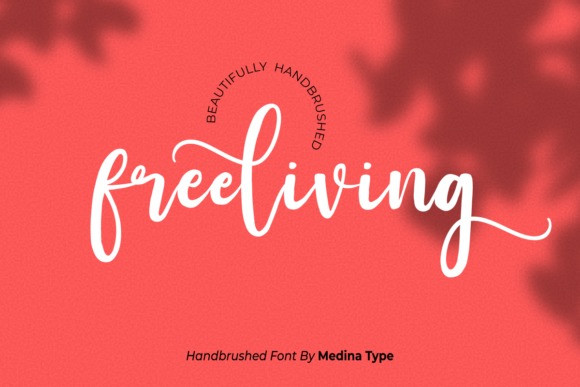
Freeliving Font
Freeliving Script Font  is a lovely and timeless handwritten font. It is the best choice for creating eye catching logos, branding and quotes. Freeliving is PUA encoded which means you can access all of the glyphs and swashes with ease!